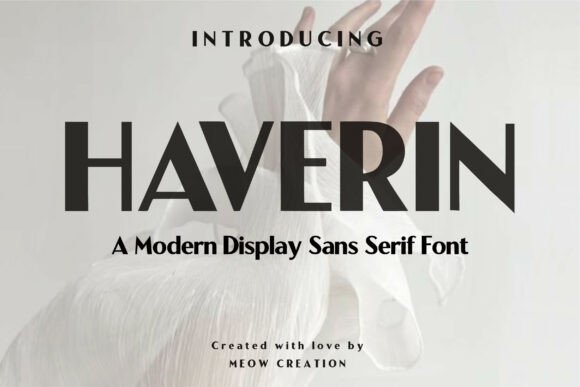
When Words Need to Make a Statement
You’re sitting in front of your computer, staring at a blank canvas, and suddenly, the perfect idea hits you. It’s a bold concept, a game-changer, and you know you need a font that can match its intensity. That’s when you turn to a trusted font that can elevate your design and make your message stand out. Enter the Haverin Font, a clean and modern sans serif display font designed to make a lasting impression.
With its smooth geometric shapes and balanced proportions, the Haverin Font brings a stylish yet minimal look to any design. Whether you’re working on a logo, poster, or branding project, this font is the perfect addition to your toolkit. Its confident simplicity makes it a valuable asset for designers who want to create eye-catching typography that commands attention.
Haverin Font Key Features
- Font Family: Haverin is a sans-serif font family with a modern and clean design.
- Unique Characteristics: Haverin features a distinctive geometric shape and a subtle rounded edge, making it suitable for modern branding and digital interfaces.
Haverin Font Review
I recently had the chance to work with the Haverin font, and I have to say it’s a mixed bag for me. Let’s start with what works well ✨. I love the unique blend of modern and vintage elements that give it a distinctive look. The font is perfect for creative projects that need a touch of sophistication without being too over-the-top. I also appreciate the wide range of weights and styles available, making it easy to find the perfect fit for any project.
- Unique blend of modern and vintage elements
- Perfect for creative projects that need a touch of sophistication
- Wide range of weights and styles available
However, there are some limitations ⚠️ that might be a concern for some users. For one, the font can be a bit difficult to read at smaller sizes, which might limit its use in smaller text or mobile apps. Additionally, the font’s distinctive look might not be to everyone’s taste, so it’s essential to consider your target audience before using it.
Overall, I think the Haverin font is a great choice for designers looking for a unique and sophisticated look. While it may have some limitations, the benefits far outweigh the drawbacks. With a little creativity and consideration for your target audience, the Haverin font can be a real showstopper.
Getting the Most Out of Haverin Font
To get the most out of Haverin Font, use it in bold and italic styles to add emphasis and create visual interest. You can also pair it with other fonts to create a unique and eye-catching design.
Haverin Font is commonly used in:
- Logo designs
- Brochure and flyer designs
- Business card designs
- Infographic designs
Alternatives to Haverin Font
Inter Font is a sans-serif typeface designed by Rasmus Andersson. It’s a highly legible font suitable for body text, titles, and headings. Inter Font is ideal for digital products, websites, and mobile applications where clear typography is essential.
Compared to Haverin Font, Inter Font is more versatile and offers a wider range of weights and styles, making it suitable for various design projects. While Haverin Font has a more rounded appearance, Inter Font has a more geometric and modern feel.
Lato Font is a sans-serif typeface designed by Łukasz Dziedzic. It’s a clean and modern font suitable for titles, headings, and body text. Lato Font is ideal for websites, mobile applications, and print materials where a sophisticated look is required.